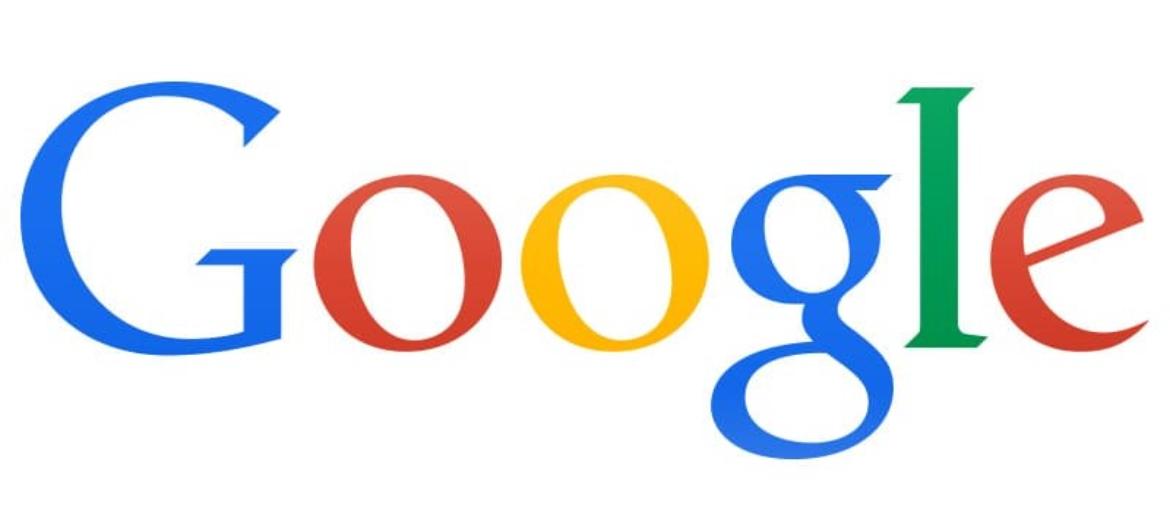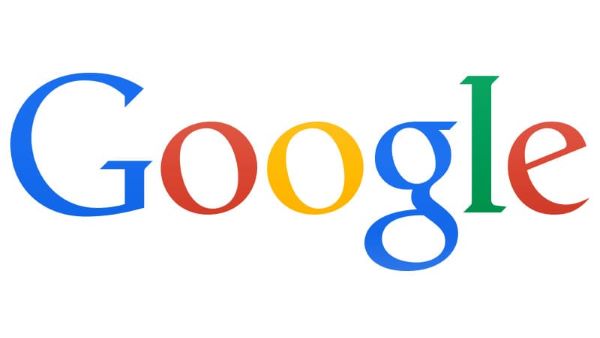
Google Font
What Font is Google?
The Google Font is based on Catull BQ Regular, a commercial serif typeface created in 1982 by German designer Gustav Jaeger for Berthold. Known for its distinctive flared strokes and expressive serif shapes, Catull gave Google’s early logo its recognizable, slightly calligraphic charm. Because Catull BQ Regular is a commercial font, it requires a license for use.
About Google
Google, founded in 1998 by Larry Page and Sergey Brin, is a global technology company best known for its search engine, which quickly became the most widely used in the world. Over the years, Google expanded into email (Gmail), mobile software (Android), cloud computing, hardware devices, AI technologies, and countless internet-based services.
Today, Google is a core part of Alphabet Inc., delivering tools such as YouTube, Google Maps, Google Drive, Google Photos, and more. Its branding, including its evolving typography, reflects the company’s ongoing shift toward simplicity, accessibility, and modern design across all of its digital platforms.